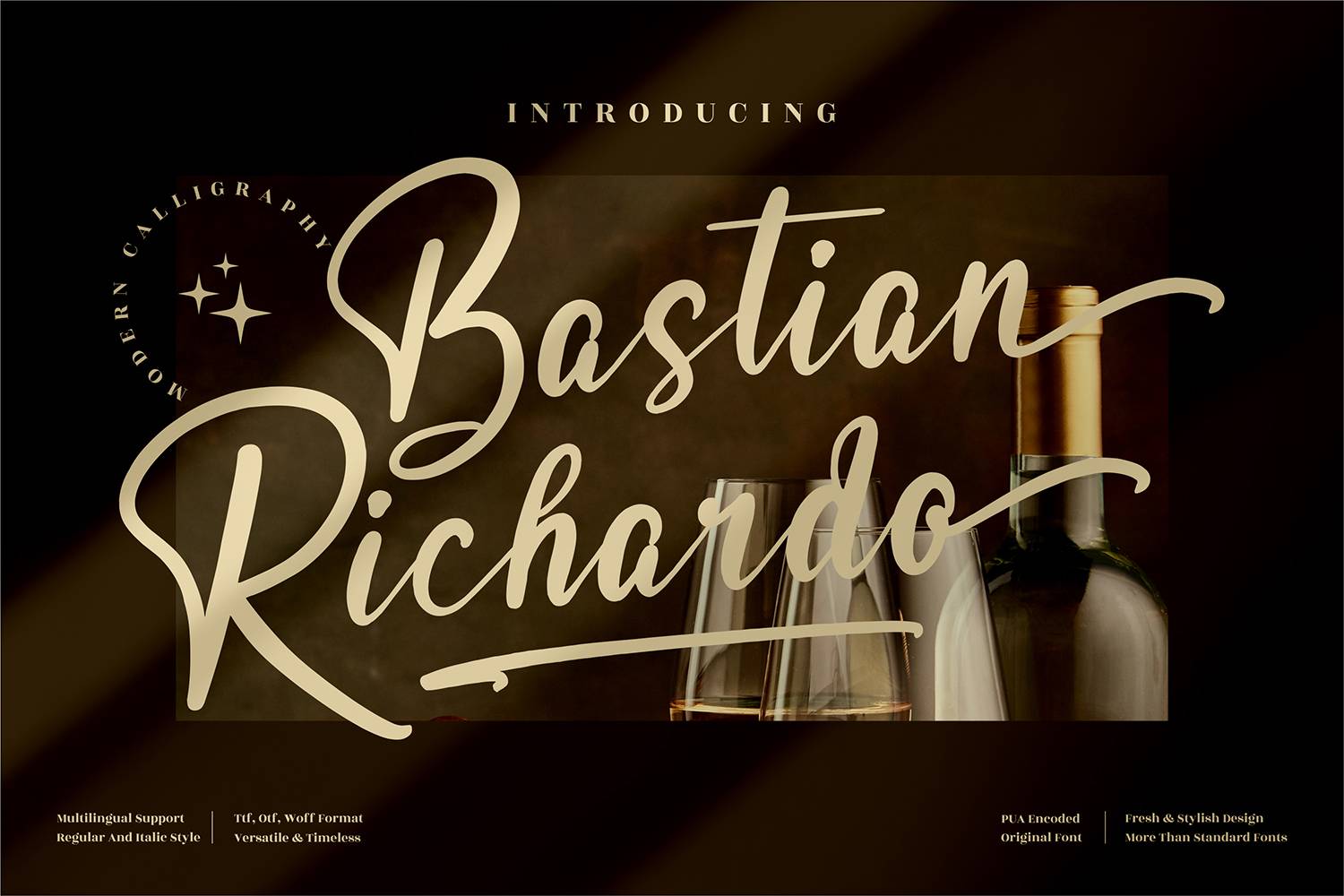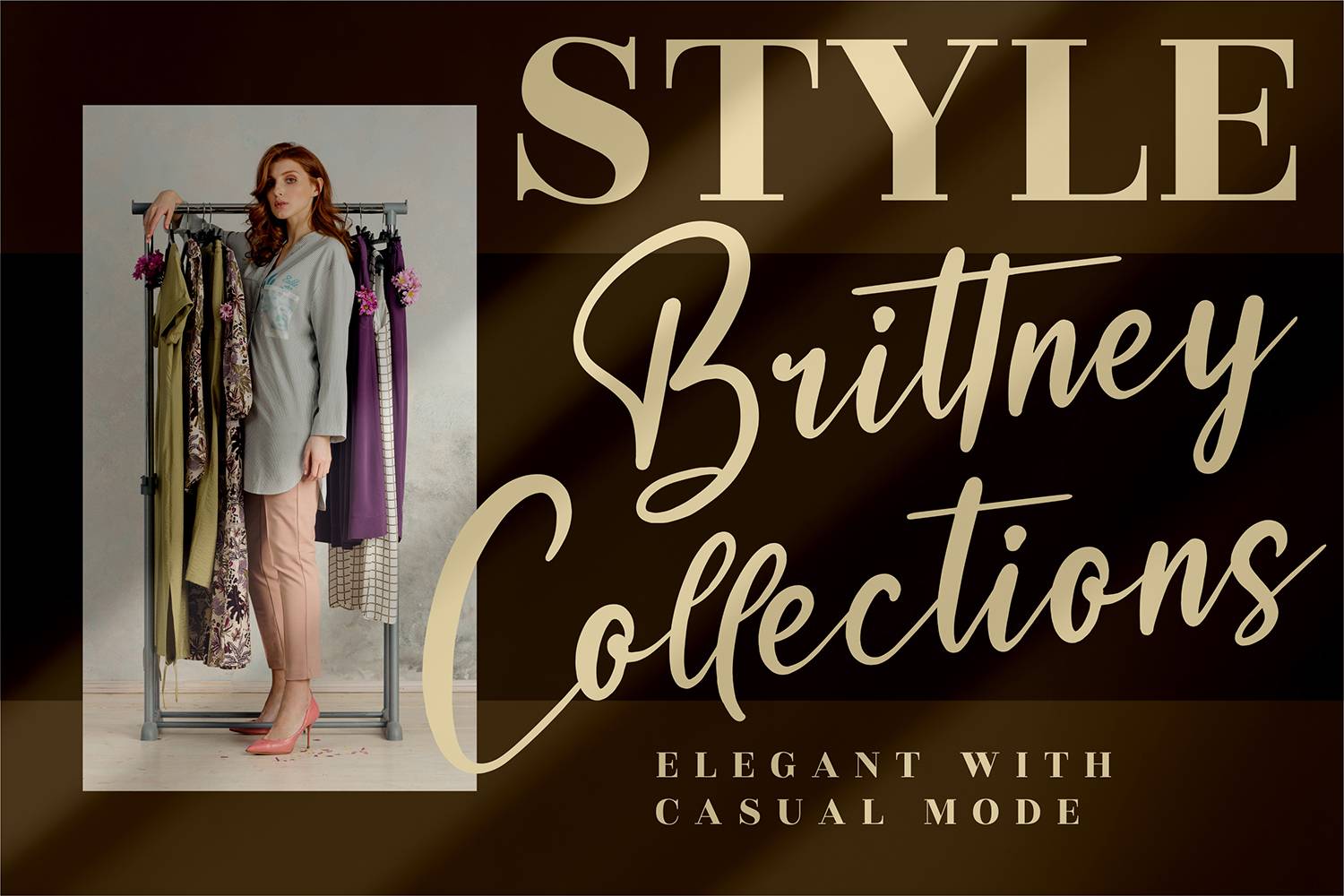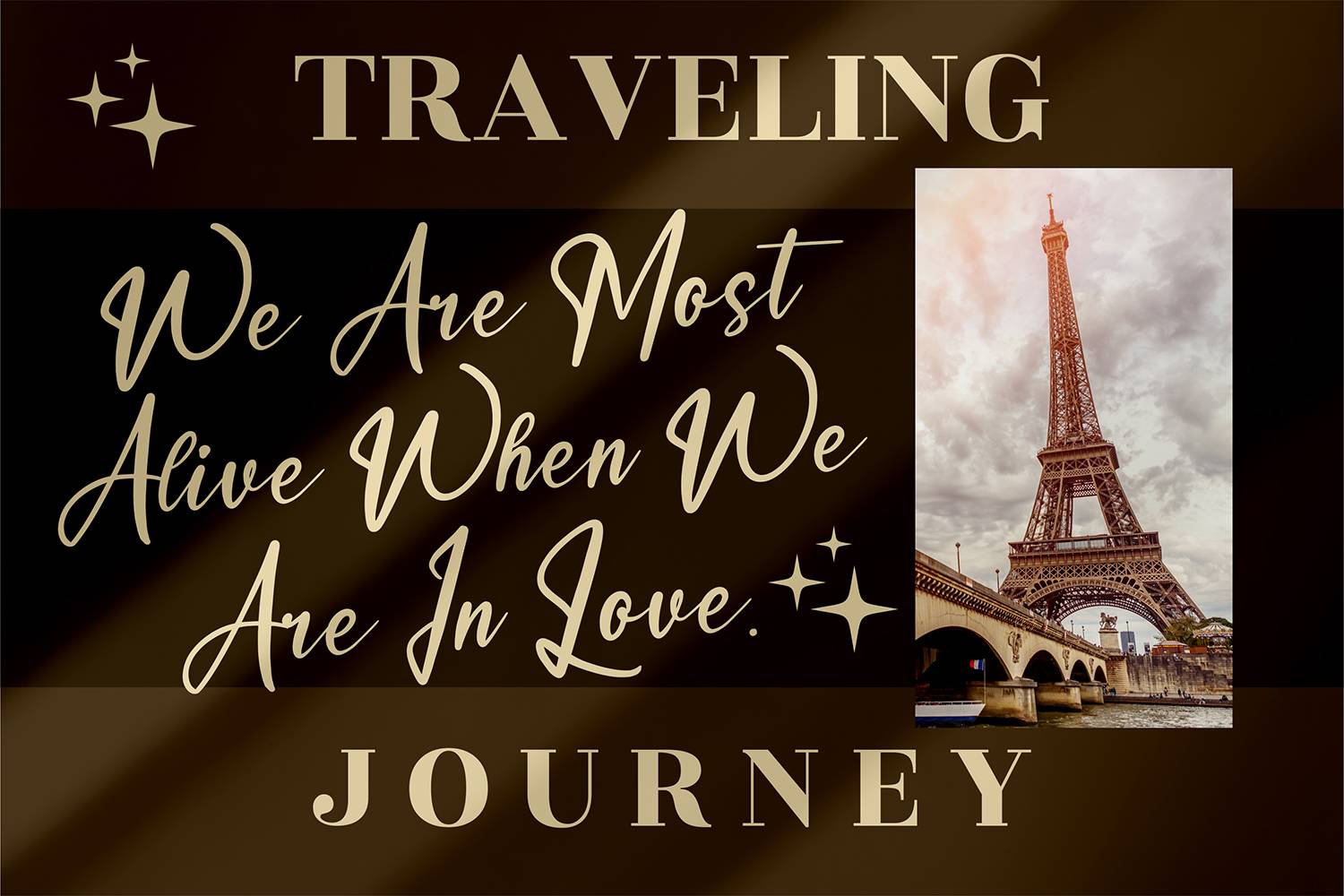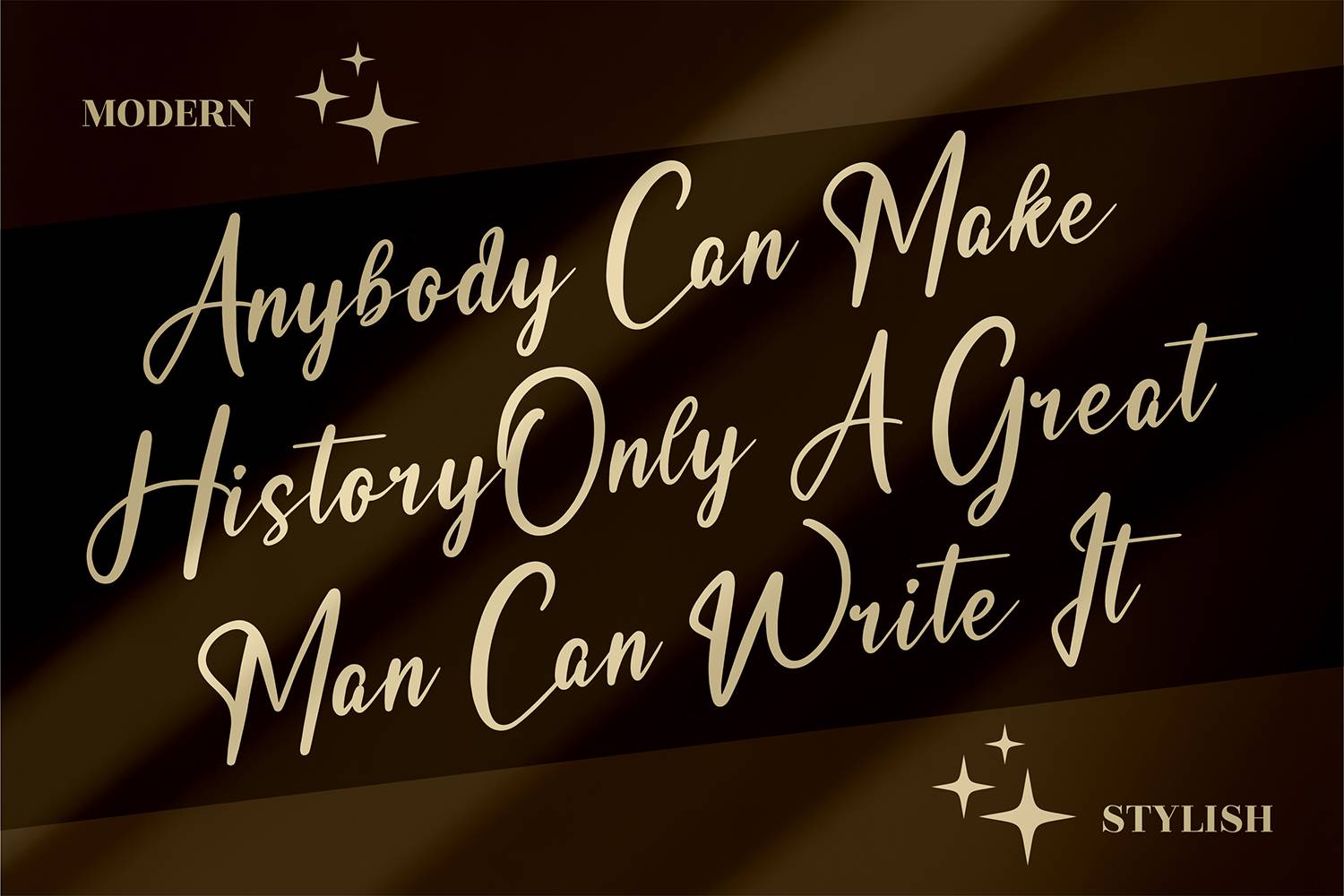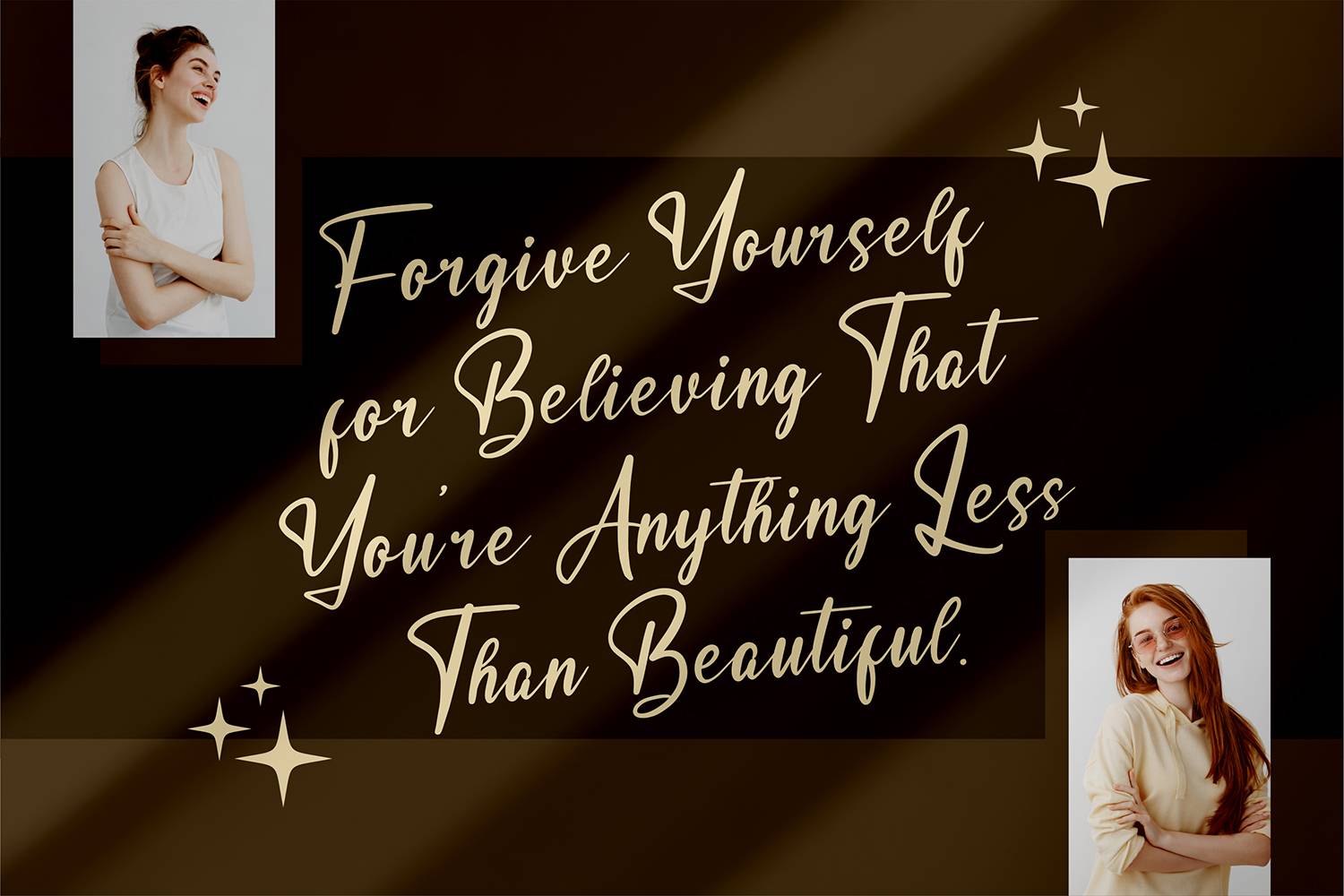
Bastian Richardo is a stylish script font with a modern, flowing character that combines elegant cursive strokes with a playful, hand-lettered feel. It features a medium weight with balanced contrast and smooth, slightly rounded letterforms, making it ideal for branding, invitations, and editorial headlines that seek a personal yet sophisticated touch. This font excels in projects that require a warm, approachable elegance with artistic flair.
Bastian Richardo Font
About Bastian Richardo Font